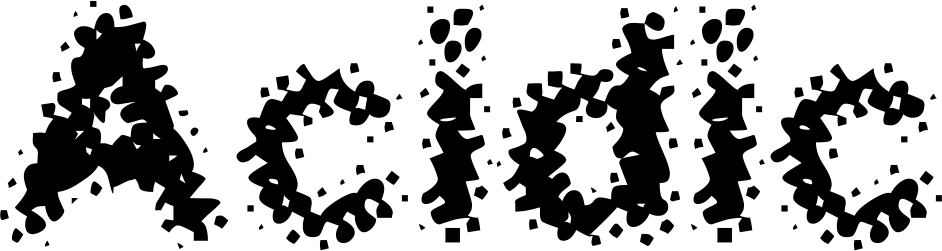
Acidic Font
Aren’t you tired of the same old font for every content you create? Stop that here and start using a specific font for different projects like distorted fonts for projects like posters, flyers, movie titles, website headers, etc. And from that category, we offer you Acidic.
This font comes with a great collection of characters that contain both the uppercase and lowercase of the alphabet, numbers, and punctuation marks.